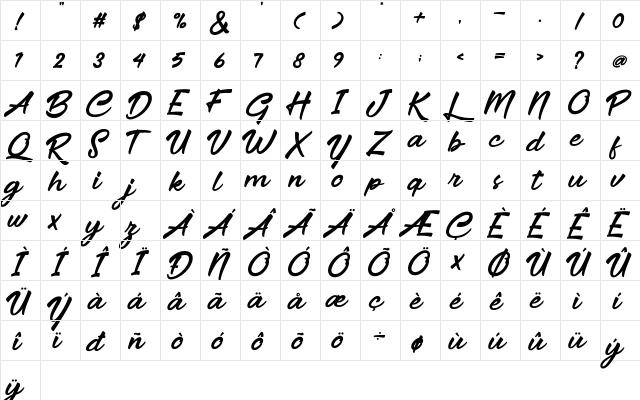
The Delicate DEMO Font Preview
| Foundry | Suandana I Pande Made |
| Designer | Suandana I Pande Made |
Design Context for The Delicate DEMO Typeface
The Delicate DEMO is a composed and adaptable typeface that performs quietly and consistently across a wide range of design contexts.